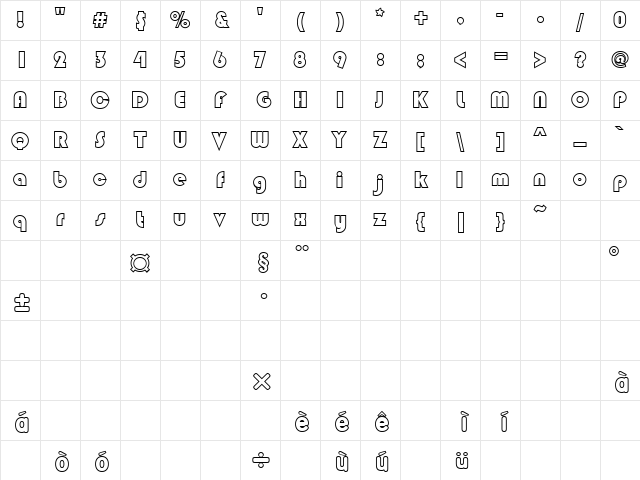
Complete STCaiyun Regular glyph index. Displaying only characters natively supported by STCaiyun Regular font.
STCaiyun is a composed and adaptable typeface that performs quietly and consistently across a wide range of design contexts.